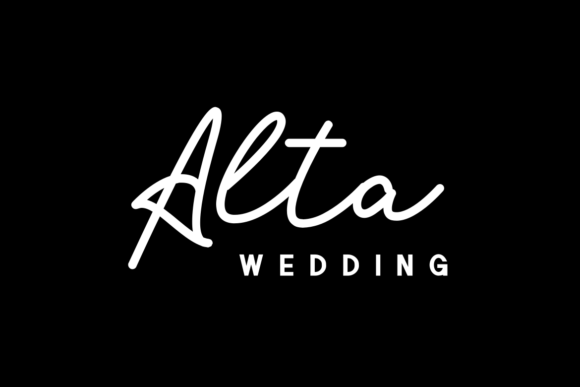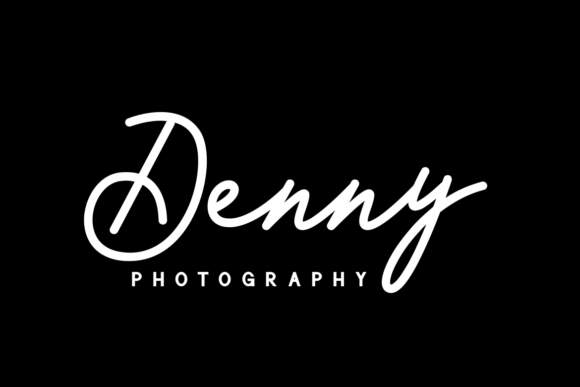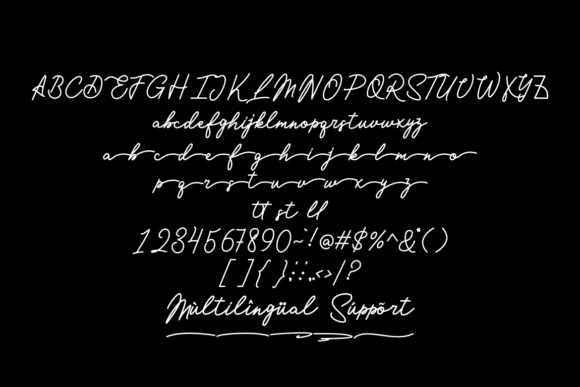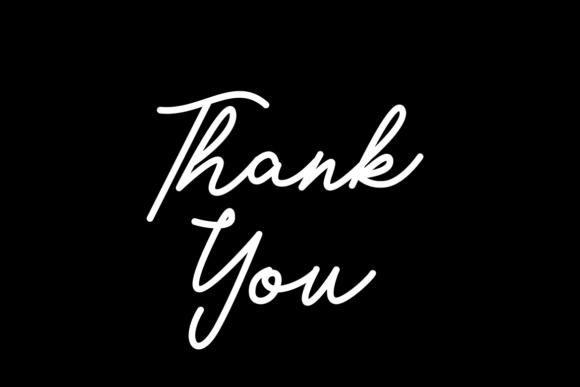
The Magic of Ermia Font: Bringing Your Designs to Life
Have you ever been brainstorming a new project and suddenly, a spark of creativity strikes? The ideas start flowing, and you can almost see your vision taking shape. It’s moments like these that make being a designer so thrilling! But, as much as our imagination runs wild, we need the right tools to bring our ideas to life. That’s where the Ermia Font comes in – a delicate, elegant, and flowing handwritten font that’s sure to elevate your designs to the next level.
With its beautiful and well-balanced characters, the Ermia Font is the perfect addition to any project. Whether you’re working on a wedding invitation, a branding campaign, or a social media graphic, this font is sure to make your designs stand out. Its versatility and sophistication make it a valuable asset for designers, allowing them to create unique and captivating visual experiences.
Ermia Font Key Features
- Unique Characteristics: Ermia Font boasts a distinctive, elegant design with subtle flair and sophistication, making it suitable for a wide range of applications, from body text to headlines.
- Language Support: The font supports a broad range of languages, including Latin, Cyrillic, and Greek scripts, making it an excellent choice for multilingual publications and websites.
Ermia Font Review
I recently had the chance to work with the Ermia font, and I must say it’s an interesting mix of styles. Here are my thoughts:
- The Ermia font has a beautiful, elegant feel to it. The curves and lines flow smoothly, making it perfect for body text.
- It has a wide range of weights and styles, from light to bold, which makes it versatile for various design applications.
- The font is highly legible, even at smaller sizes, making it ideal for digital use.
- The Ermia font can feel a bit generic at times, lacking a unique identity that sets it apart from other fonts.
- Some of the weights may feel a bit inconsistent in terms of style and overall feel, which can be jarring for the user.
Overall, I’d say the Ermia font is a solid choice for designers who want a reliable, easy-to-read font for their projects. However, it may not be the best option for those looking for a truly unique or statement-making font.
Tips for Getting the Most Out of Ermia Font
Use Ermia Font for titles, headings, and body text to create a cohesive and stylish design. Experiment with different font sizes, colors, and combinations to achieve the desired effect.
Ermia Font is ideal for creative projects, such as:
– Blog posts
– Infographics
– Brochures
– Business cards